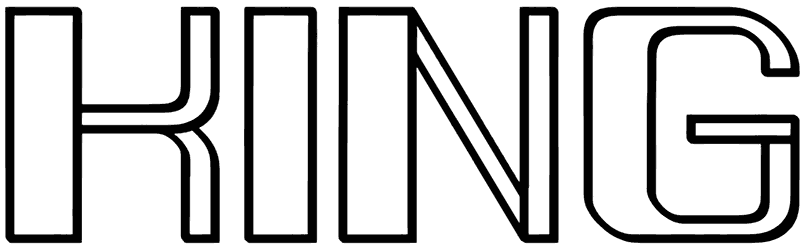
King Font
If you want to shine on any occasion and be different from others, King is the element of your success. This outline font is a modern take on an old favorite that can add beauty without complicated details.
Changing the thickness in different parts of this fancy font gives it a playful and childish tone, which is pleasant for seasonal designs and can integrate with the background. Even without lowercase letters, King can help you stand out from the crowd.